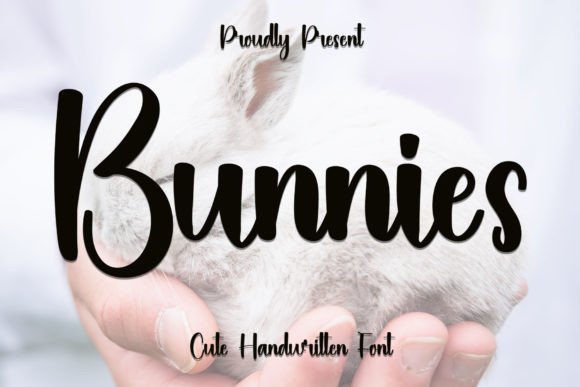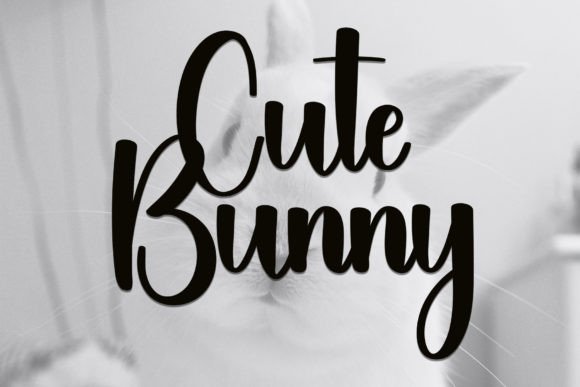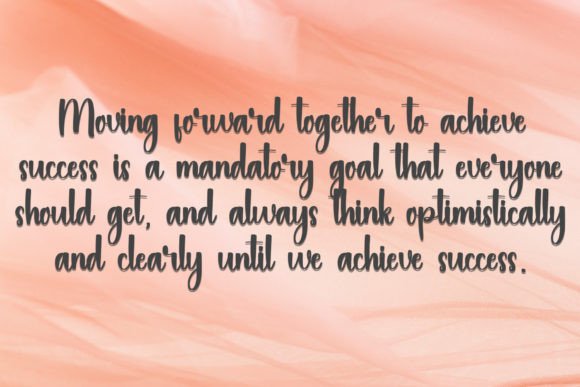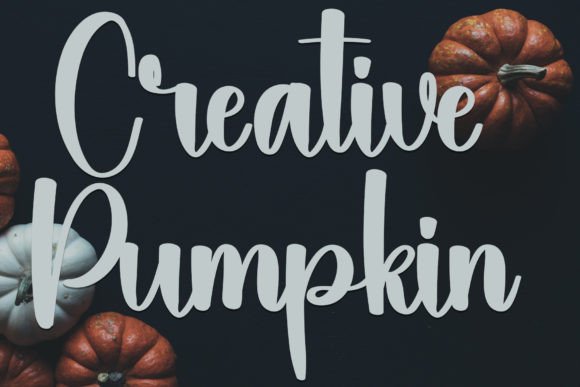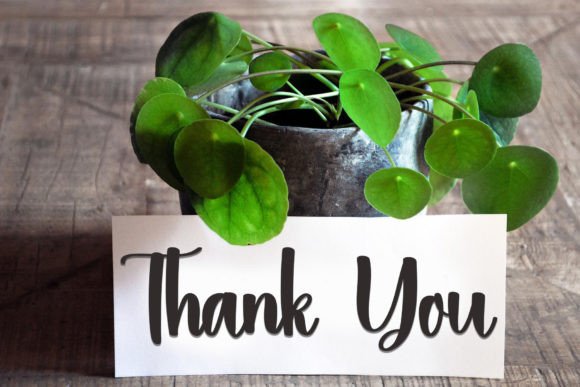
The Perfect Pen Stroke: Introducing Bunnies Font
Who hasn’t scribbled down a creative idea in the dead of night, only to have it shine bright in the morning light? As designers, we’ve all been there – fueled by a burst of inspiration and driven to bring our visions to life. For those moments, you need a font that’s as playful as it is professional, and that’s where Bunnies Font comes in.
This charming handwritten script font is designed to add a touch of whimsy to your designs. Whether you’re creating a flyer, wedding invitation, or social media post, Bunnies Font is the perfect companion to help you convey your message in a unique and captivating way. Its versatility and charm make it a valuable addition to any designer’s toolkit.
Bunnies Font Key Features
- Font Family: Bunnies Font is a custom-designed font, making it a unique addition to any project.
- Unique Characteristics: The font features a playful, whimsical design with hand-drawn elements and a soft, rounded appearance.
Bunnies Font Review
Overall, I think Bunnies Font has some unique charm to it. Here are some things that really stand out:
- ✨ The whimsical feel: The font’s rounded edges and playful vibe make it perfect for designs that need a bit of whimsy.
- ✨ Great for headings: The bold, bouncy feel of Bunnies Font makes it ideal for headings and titles that need to grab attention.
- ✨ Customizable: The font comes in a range of weights, making it easy to customize the look to suit your design needs.
- ⚠️ Limited legibility: While the font is perfect for headings, it can be a bit tricky to read in body text, especially at smaller sizes.
- ⚠️ Limited character set: The font doesn’t come with a full character set, which can make it difficult to use in languages that require a wider range of characters.
- ⚠️ Not ideal for body text: As I mentioned earlier, the font can be a bit tricky to read in body text, which can make it difficult to use for longer blocks of text.
Overall, I think Bunnies Font is a great choice for designers who need a playful, whimsical font for headings and titles. Just be aware of its limitations and use it accordingly.
Tips for Getting the Most Out of Bunnies Font
Use Bunnies Font for whimsical and playful designs, such as:
- Baby-themed designs
Bunnies Font is perfect for:
- Creating a brand identity for a children’s clothing line
- Designing a menu for a bakery or café
- Illustrating a children’s book or magazine
Alternatives to Bunnies Font
Great Vibes Font is a beautiful, handwritten font that resembles a casual, cursive script. It’s perfect for adding a touch of elegance and sophistication to any design project, especially for invitations, greeting cards, and wedding stationery. Great Vibes Font is more elegant and refined compared to Bunnies Font, which has a more playful and whimsical feel.
Alex Brush Font is a elegant and sophisticated script font that is ideal for use in branding, packaging, and advertising. It’s perfect for designers who want to add a touch of sophistication and luxury to their designs. Compared to Bunnies Font, Alex Brush Font is more formal and polished, making it suitable for a wider range of design projects.
Carolyna Pro Font is a beautiful and elegant script font that is perfect for use in luxury branding, packaging, and advertising. It’s ideal for designers who want to add a touch of sophistication and glamour to their designs. Compared to Bunnies Font, Carolyna Pro Font is more refined and polished, making it suitable for high-end design projects.
Dancing Script Font is a beautiful and elegant script font that is perfect for use in invitations, greeting cards, and wedding stationery. It’s ideal for designers who want to add a touch of elegance and sophistication to their designs. Compared to Bunnies Font, Dancing Script Font is more refined and polished, making it suitable for a wider range of design projects.